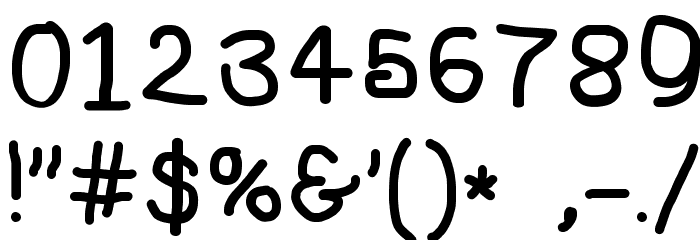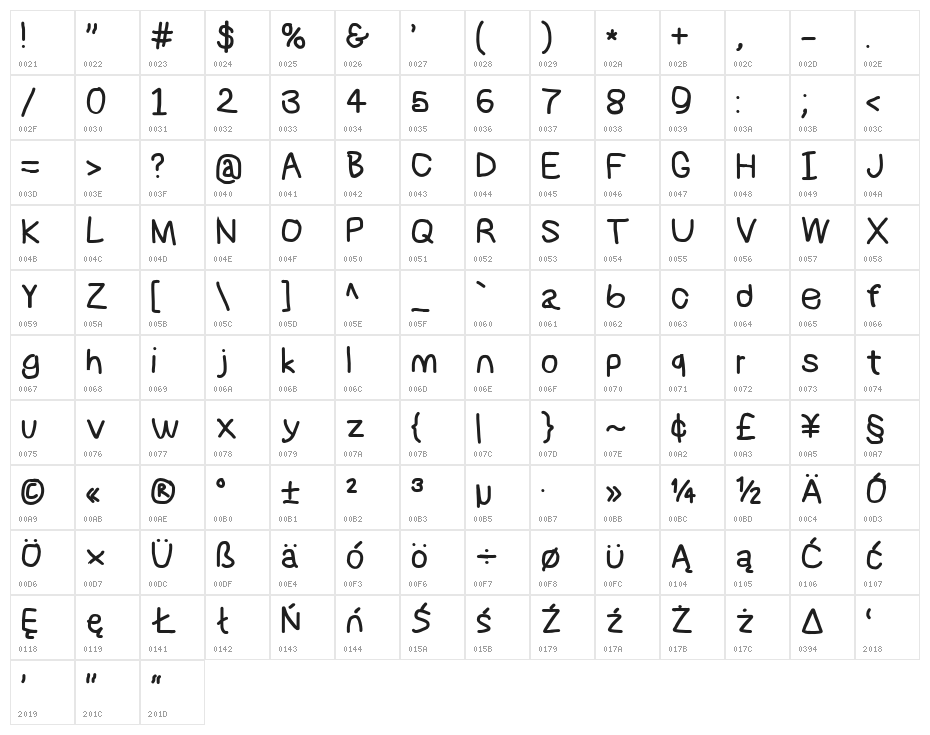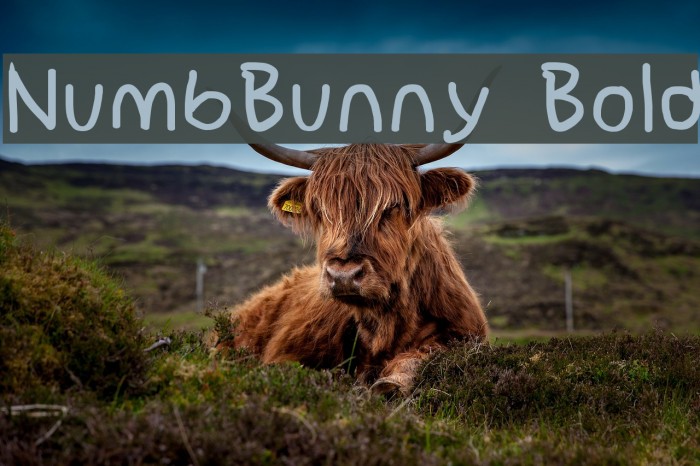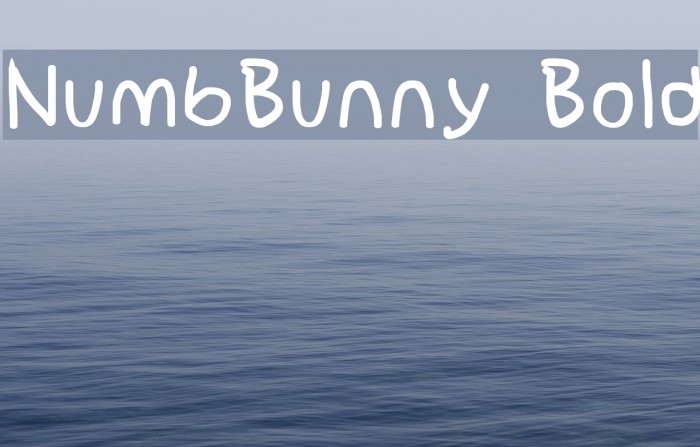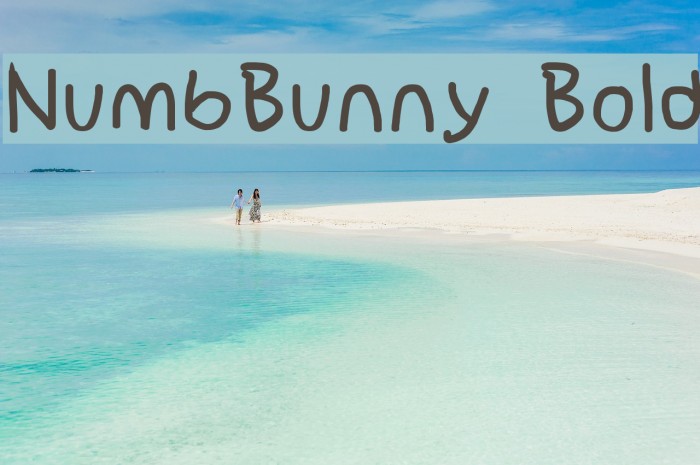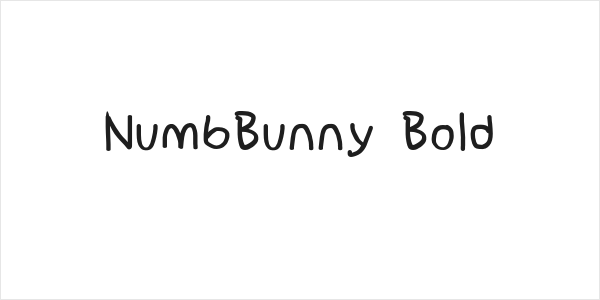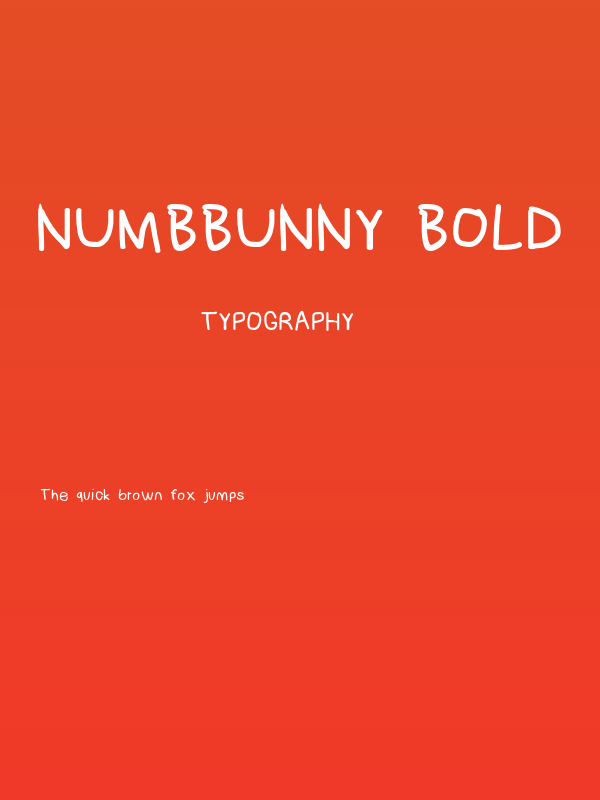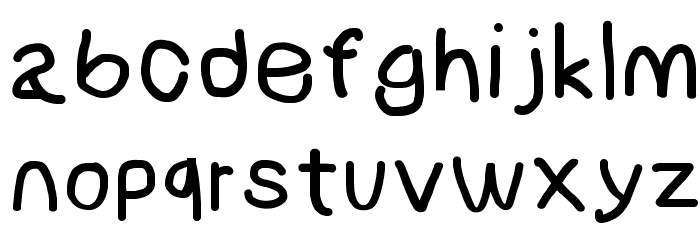
NumbBunny Bold Font
NumbBunny Bold Description
This playful and whimsical font features a handwritten style with a bold and rounded appearance. The characters are slightly irregular, giving it a casual and friendly feel. The strokes are consistent in thickness, providing a uniform look across all characters. The font includes a full set of uppercase and lowercase letters, numerals, and a variety of special characters. Its informal style makes it suitable for projects that require a touch of personality and creativity.
| Proposed Projects | Ideal for children's books, greeting cards, playful branding, and casual invitations. |